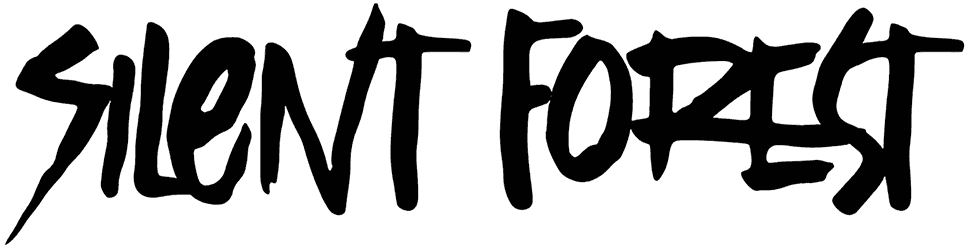
Silent Forest Font
Silent Forest is a bold, rough horror font with sharp edges that will make your work seem dreadful and creepy. It comes not only with a set of capital letters but also with a mixture of uppercase and lowercase characters.
Pay attention before downloading because this urban font doesn’t support 0,4, and 9 numbers. It is ideal for scary movies, vampire storybooks, album covers, Halloween projects, and any other design that needs a frightful touch.